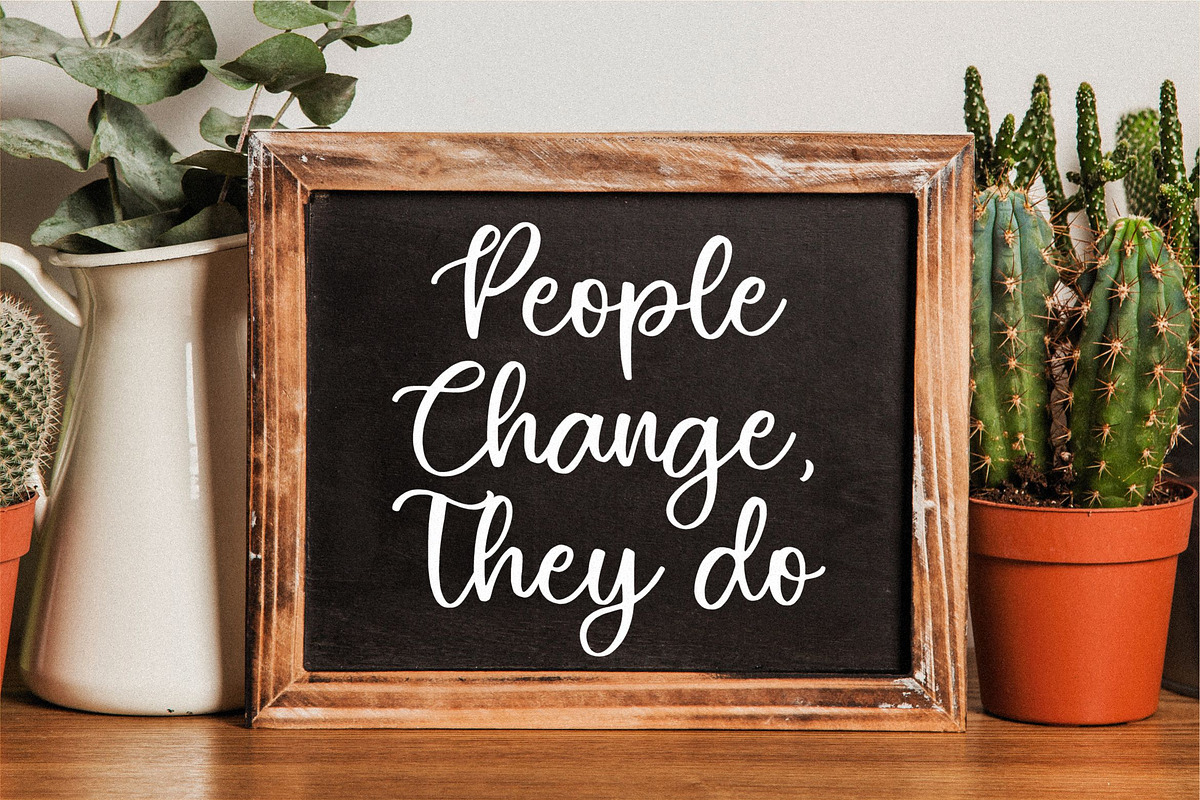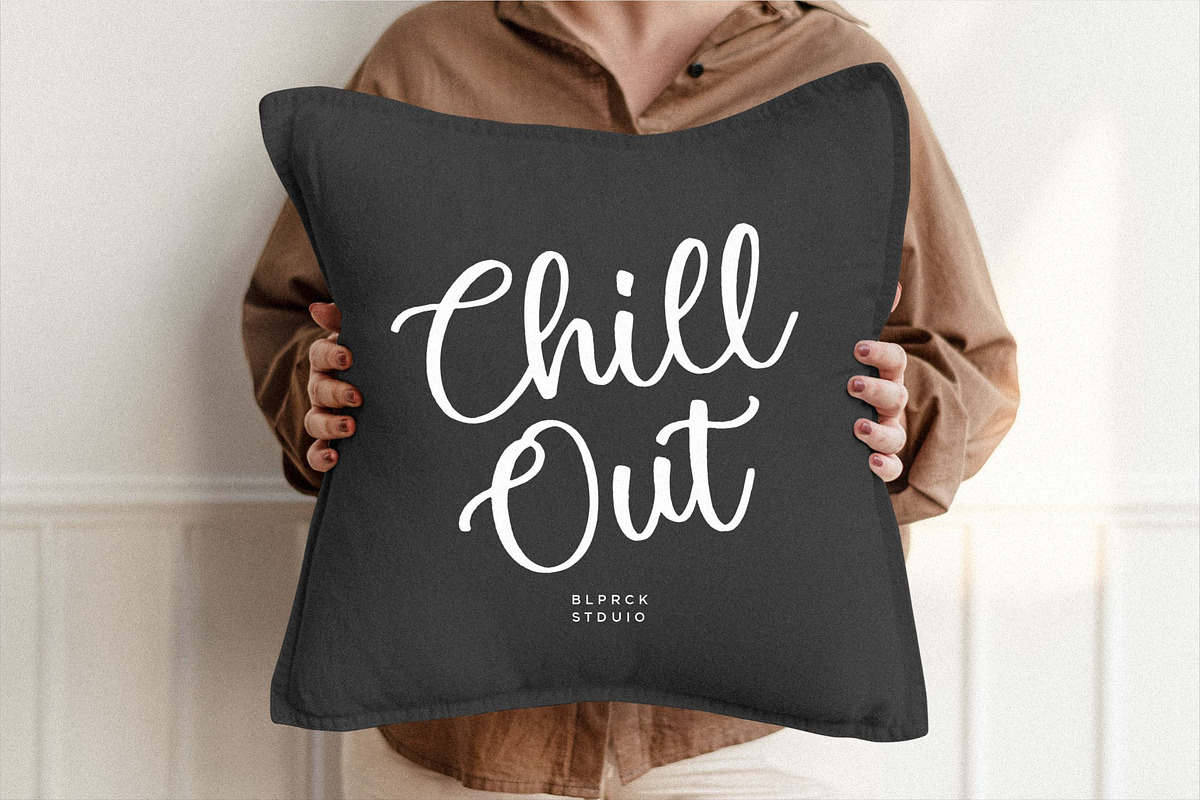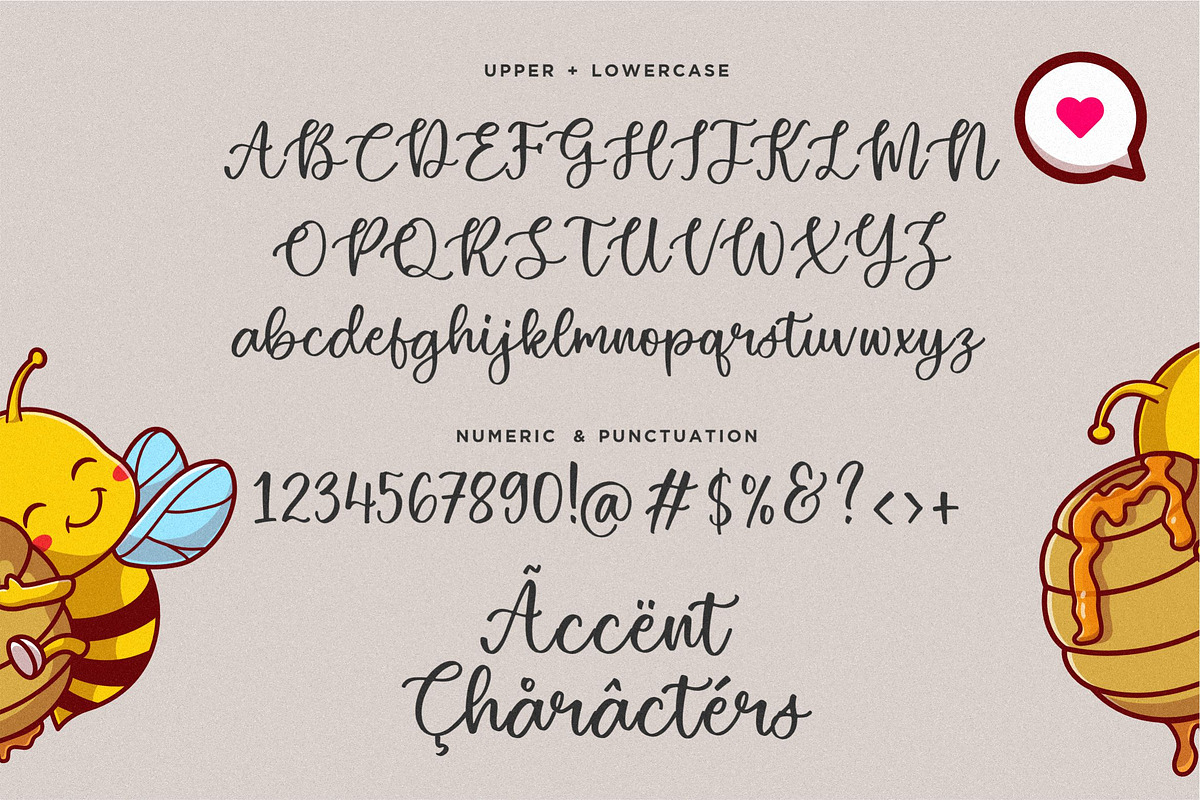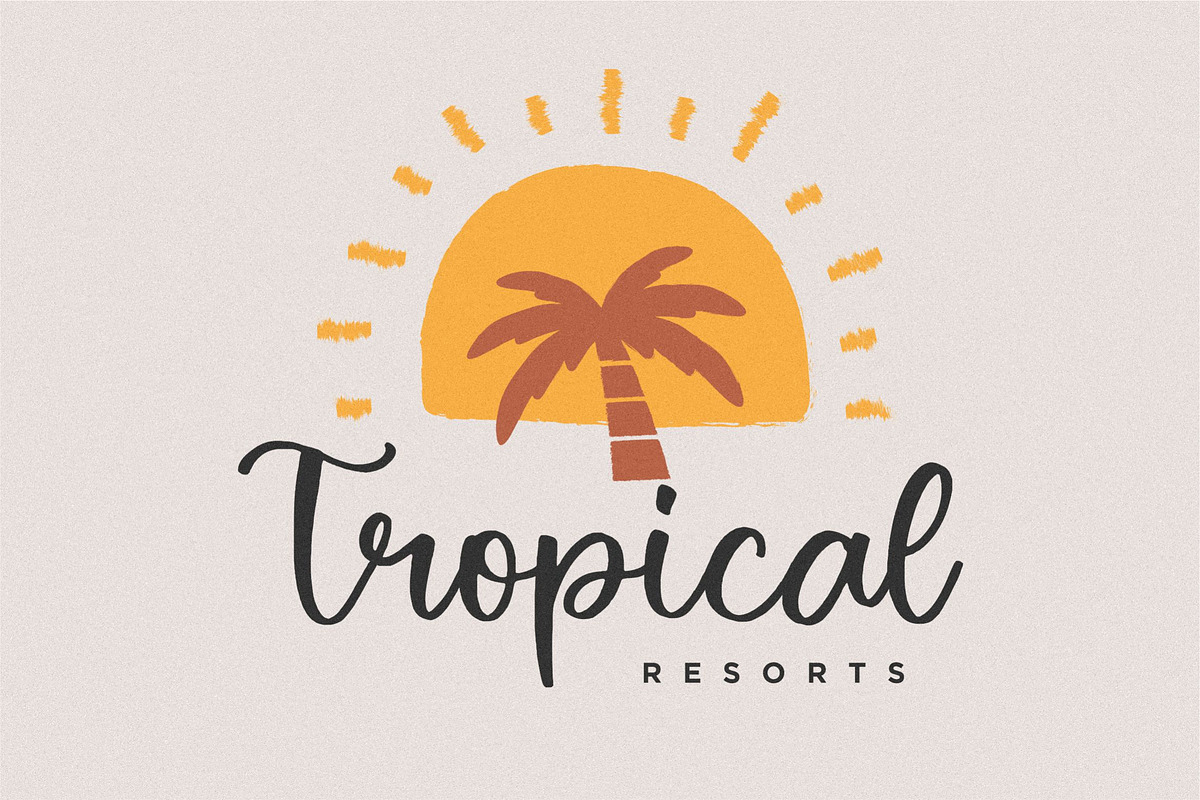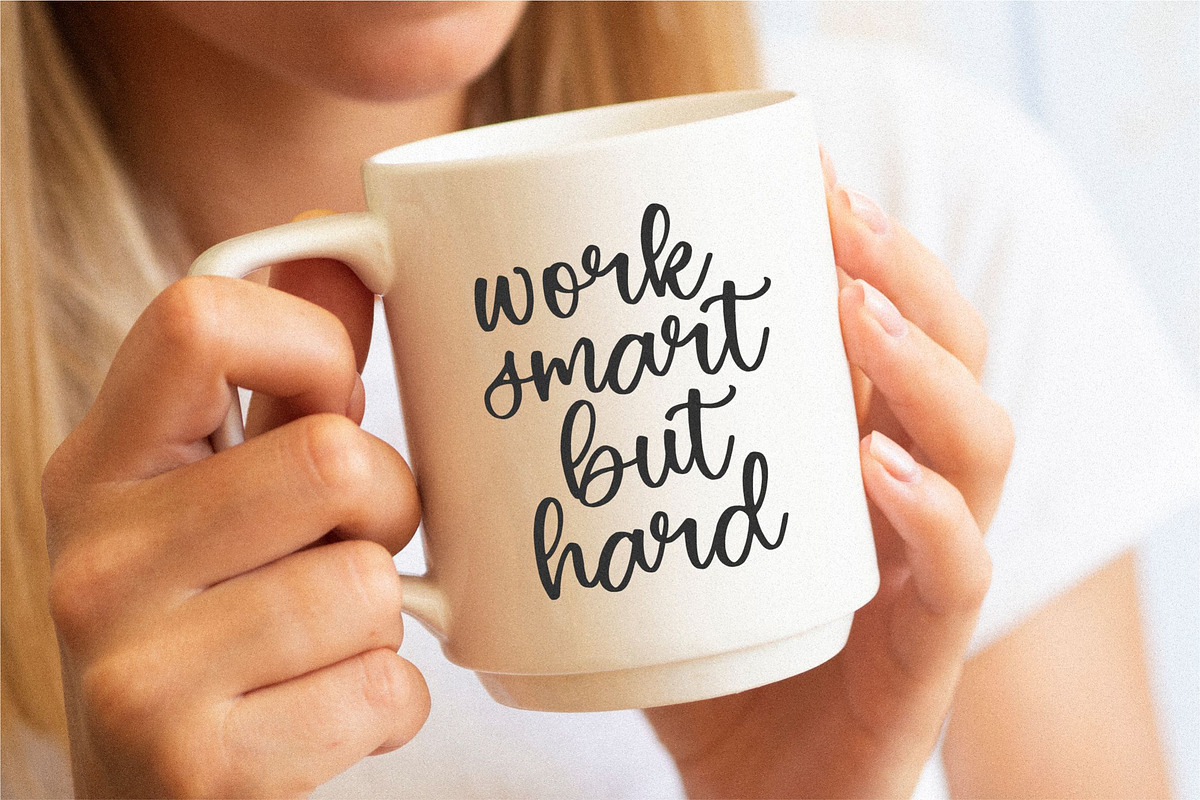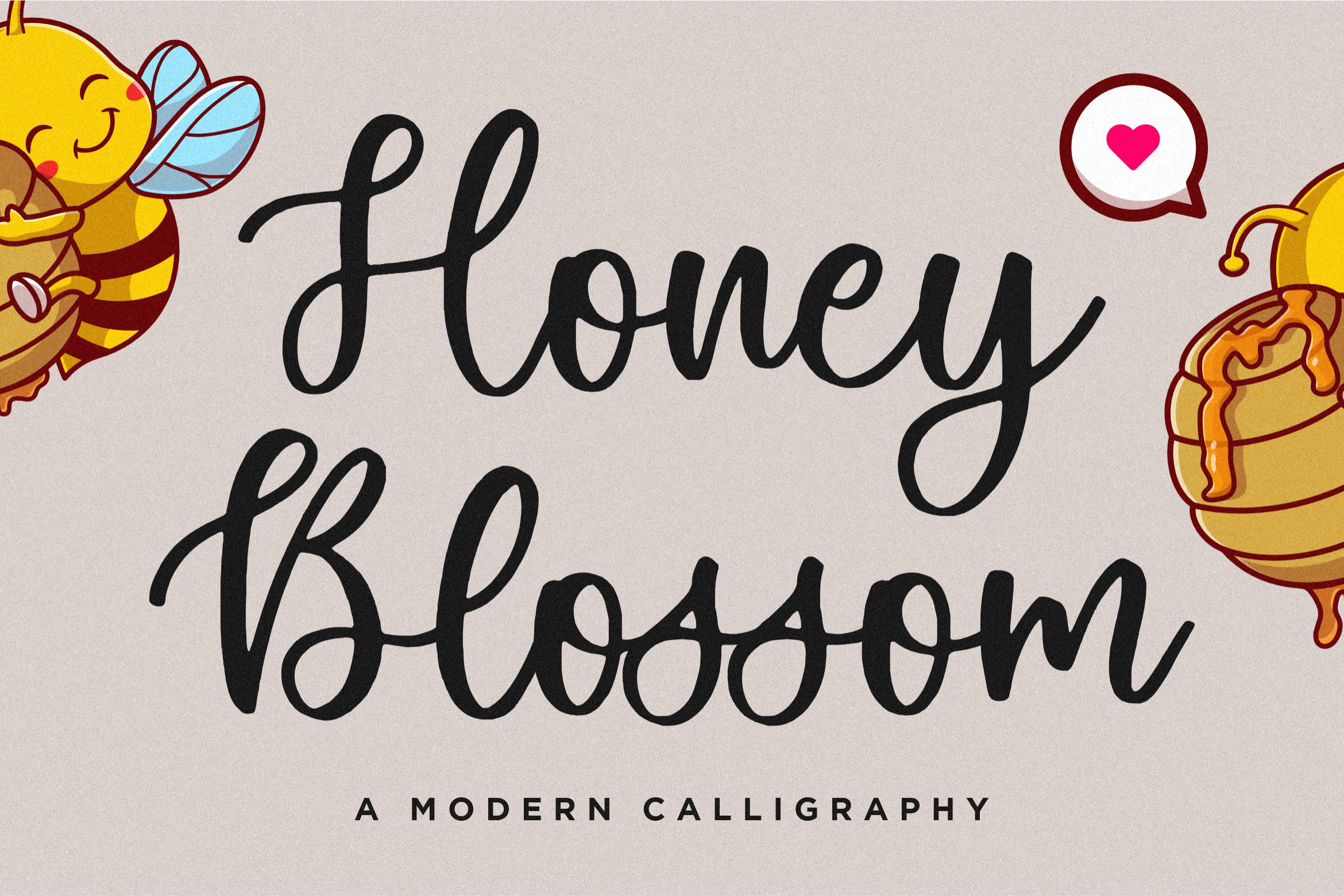
Honey Blossom - Calligraphy Font
Introducing by Balpirick Studio.
Honey Blossom is a Modern Calligraphy Font that's perfect for adding a personal touch to your design projects! With its natural, organic feel and unique character.
Crafted with care and attention to detail, this font is incredibly versatile and can be used for a range of design projects, including logos, branding, invitations, and more. Its modern, handwritten style gives it a unique character that's sure to make an impact.
- also multilingual support